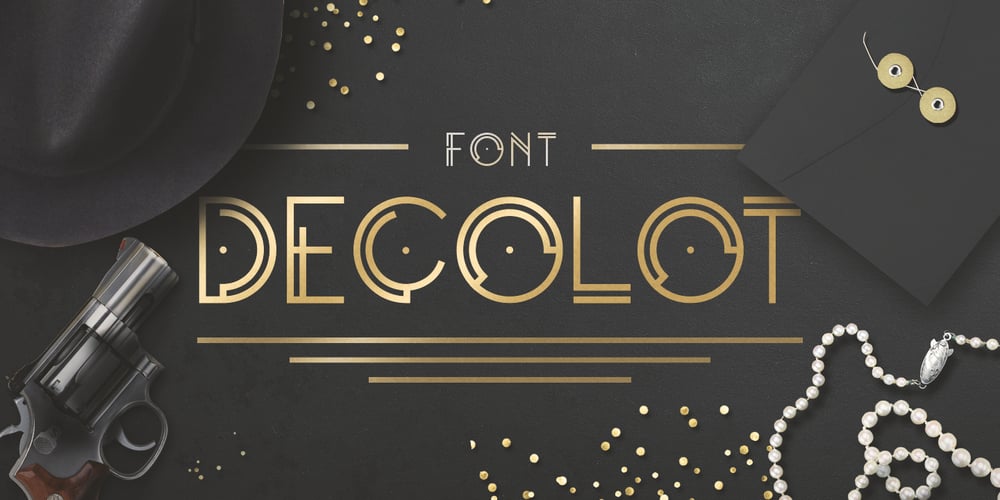
Decolot Font Family was designed by Olga Ryzhychenko and published by Ryzhychenko Olga. Decolot contains 1 styles and family package options. Decolot font was created being impressed by the art deco era. It is built on simple geometric forms. The font is ideal for posters design, invitations, headlines.